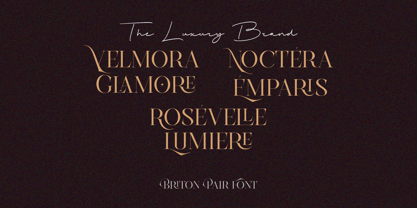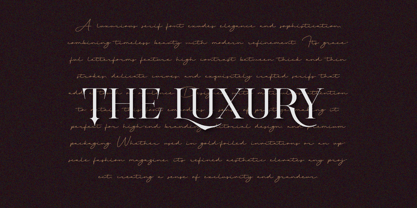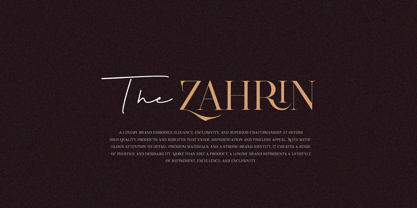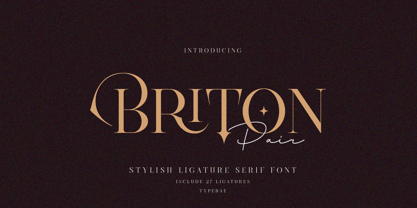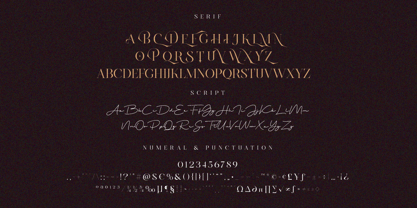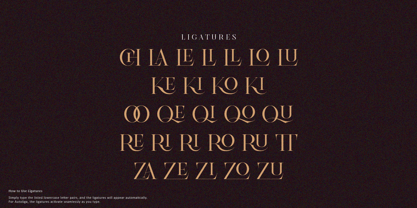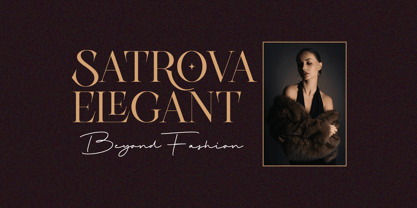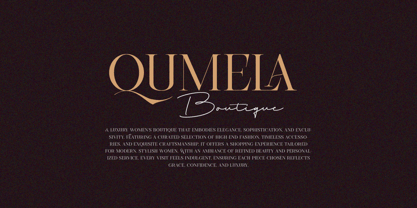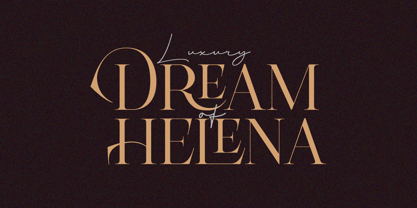
Briton Pair
von Typebae
Die Schriftfamilie Briton Pair wurde von Iqbal Pauji entworfen und von Typebae veröffentlicht. Briton Pair enthält 3 Stile und Familienpaketoptionen. Mehr über diese Familie
Briton Pair is an elegant serif font with a luxurious touch, featuring 27 ligatures for smooth, stylish connections. Its refined details and modern flourishes make it perfect for branding, editorial design, and high-end projects.
- 27 Ligatures